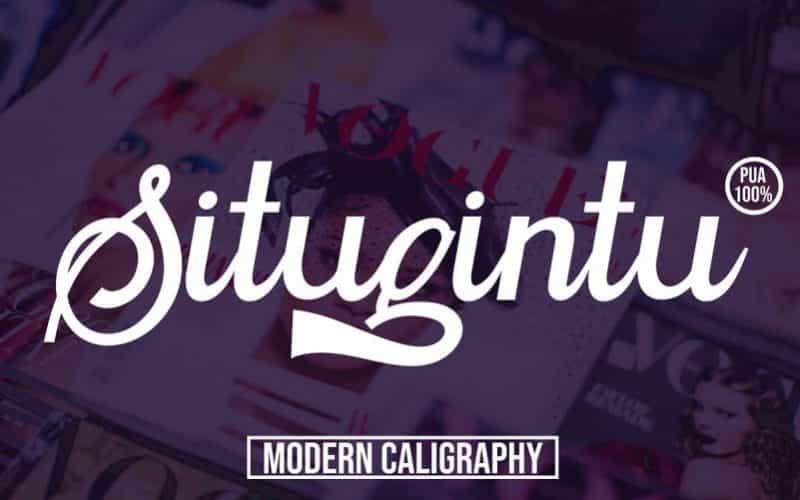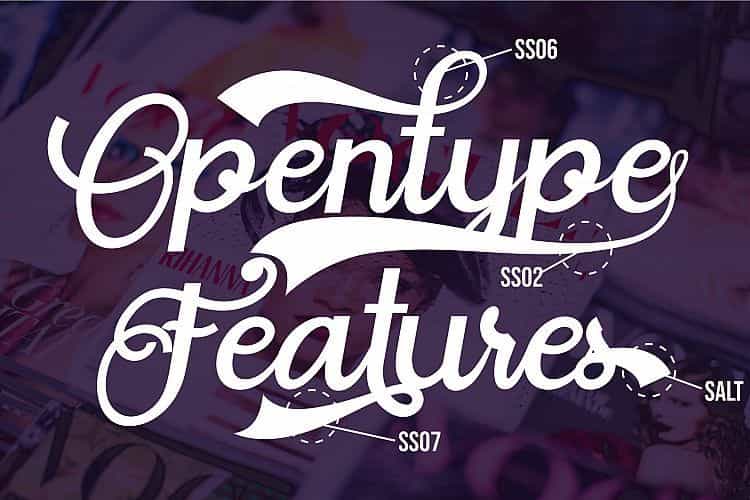
Situgintu Calligraphy is full of the different characters, swashes and ligatures. It also has a variety of tails with different shapes and widths to add the logotype or sports look to your design. You can create fantastic, graceful and varied typographic elements with it.